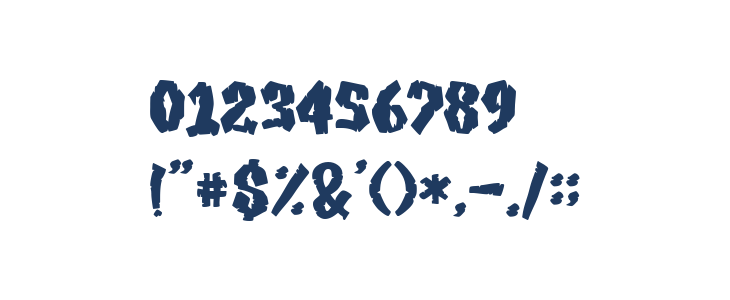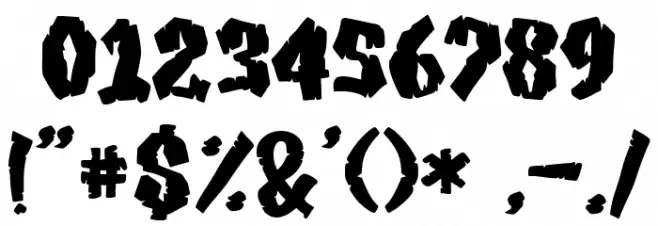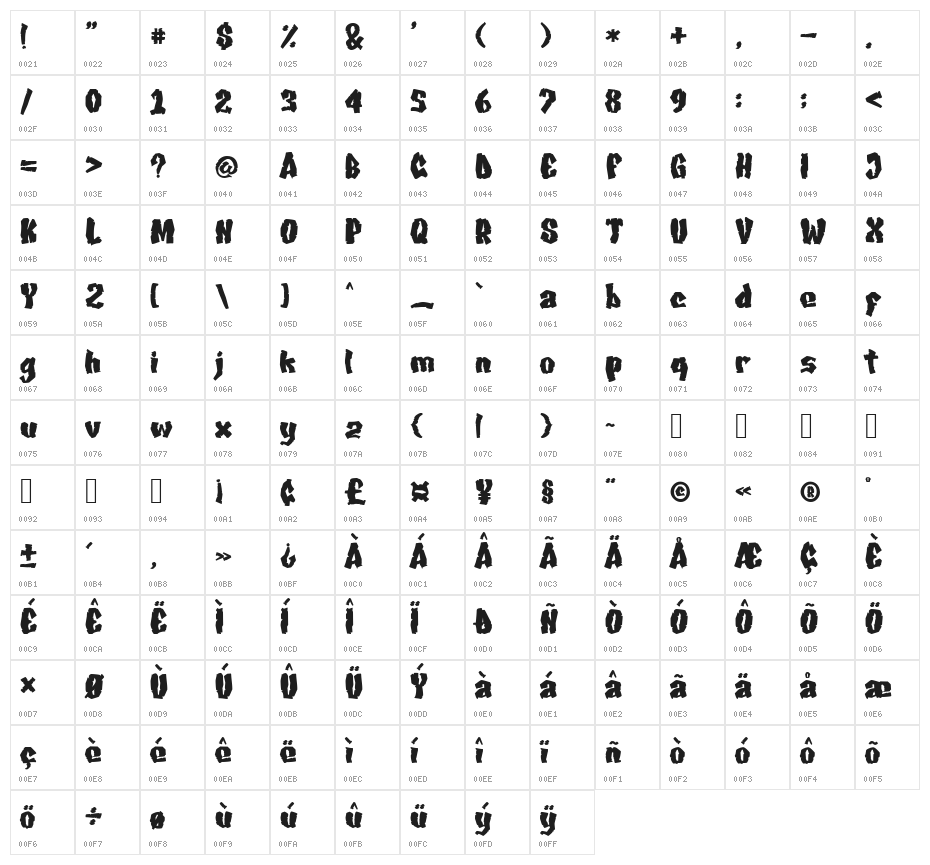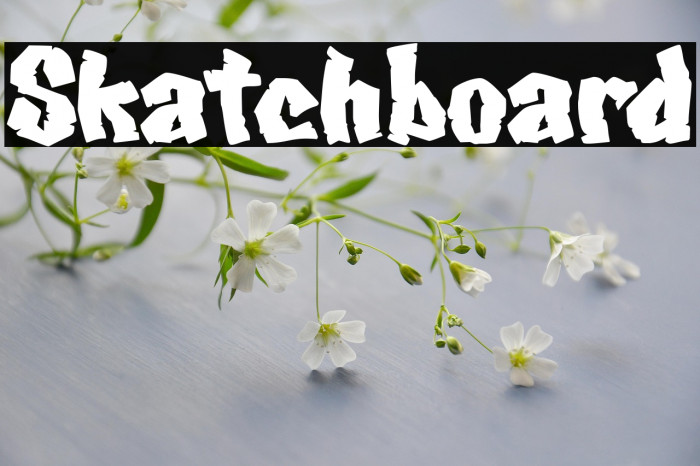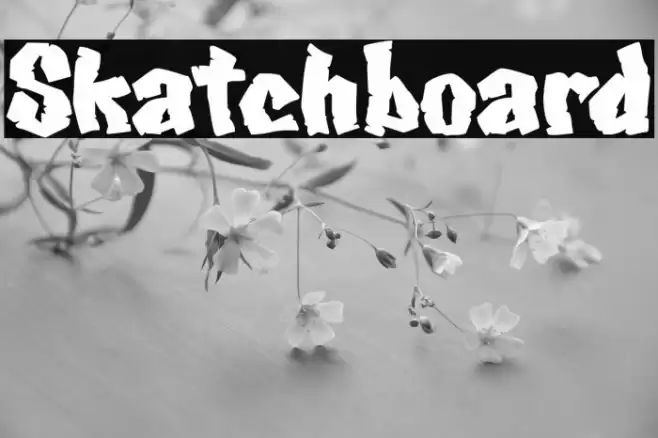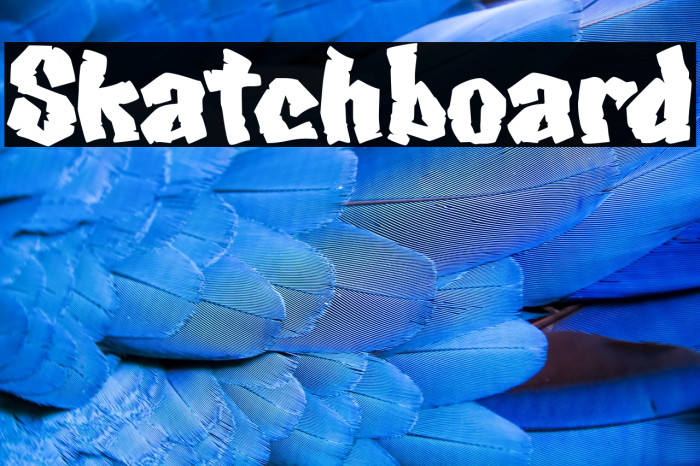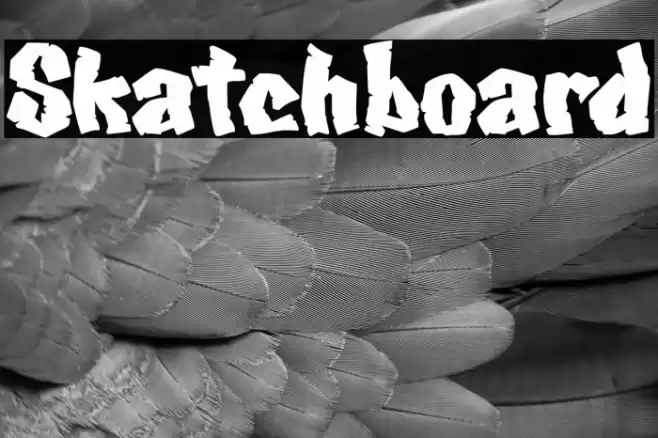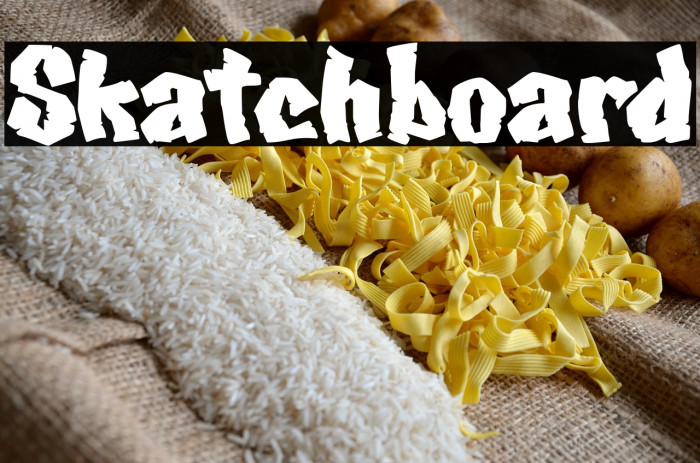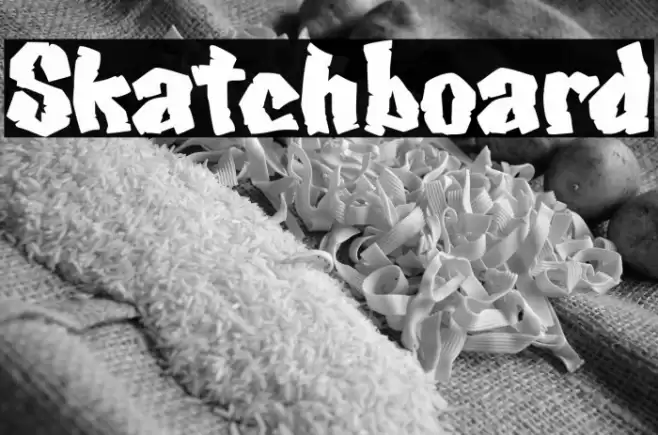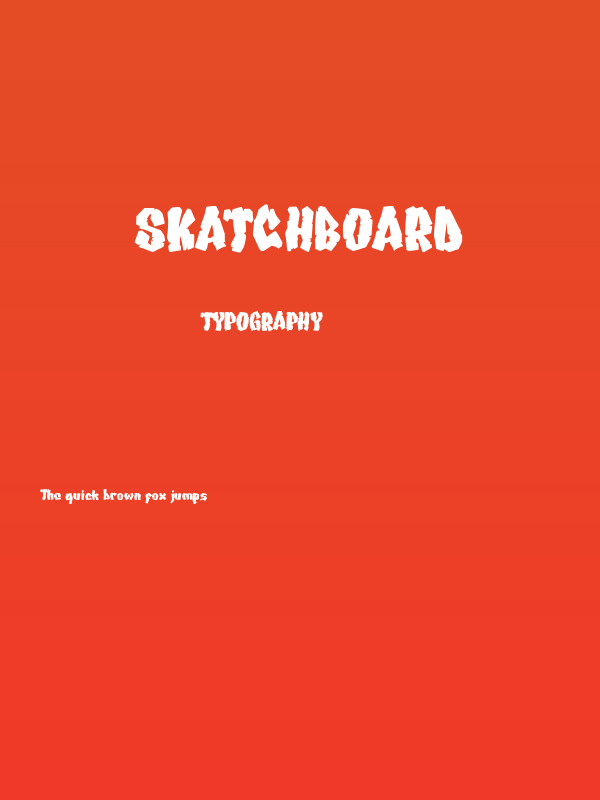
Skatchboard Font
Skatchboard Description
This font features a bold, jagged style with a hand-drawn appearance, reminiscent of graffiti or street art. The characters are irregular and dynamic, with sharp angles and uneven edges that give it a rugged, edgy look. The uppercase and lowercase letters maintain a consistent style, while the numbers and special characters follow the same aesthetic, ensuring a cohesive appearance across all text. This font's unique design makes it stand out, capturing attention with its unconventional and artistic flair.
| Proposed Projects | Ideal for street art-inspired designs, edgy posters, album covers, and creative branding projects. |